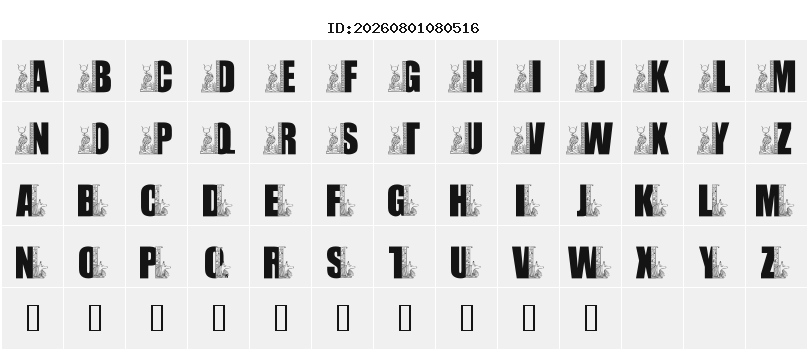
• Font Name: LMS Egyptian Bookends
About LMS Egyptian Bookends.ttf
LMS Egyptian Bookends.ttf is a modern, elegant sans-serif font designed for ultimate readability and visual harmony. Perfect for branding, headlines, web design, and print materials.